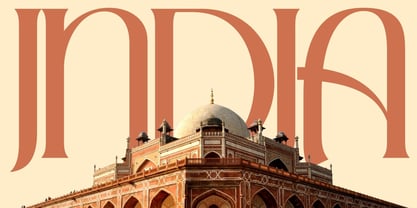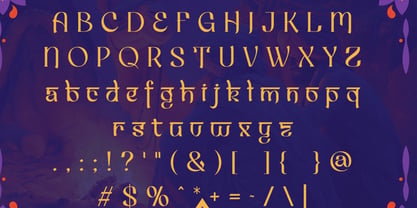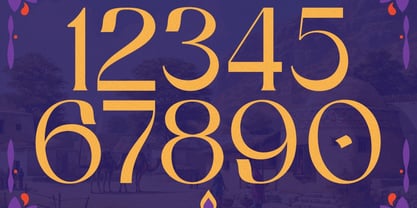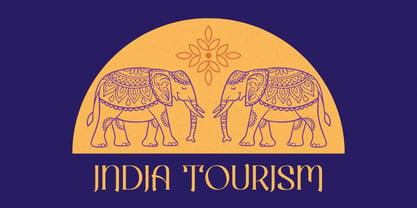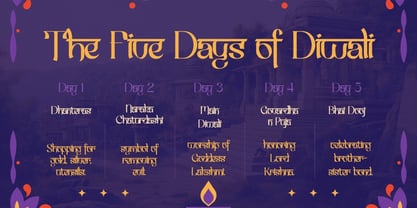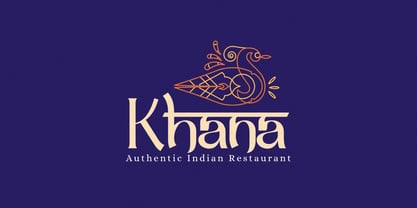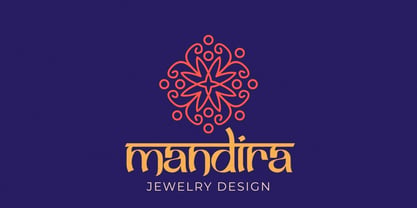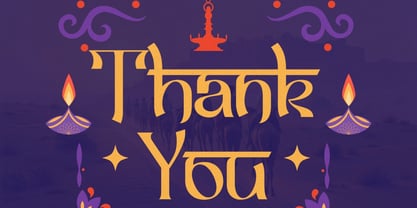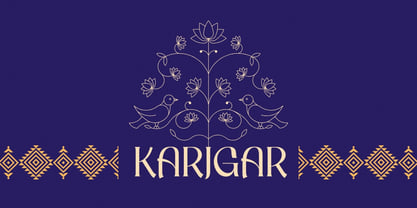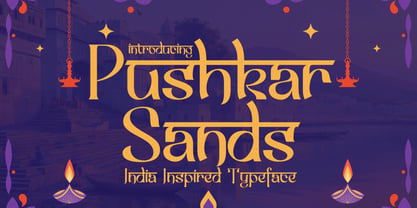
Pushkar Sands
by Hipfonts
The Pushkar Sands Font Family was designed by Igor Ovsyannykov and published by Hipfonts. Pushkar Sands contains 1 styles. More about this family
Pushkar Sands is an enchanting Indian-inspired display typeface that captures the soul of Rajasthan’s desert beauty and the festive warmth of India’s cultural heritage. With both uppercase and lowercase letters, this font blends traditional elegance with modern design sensibility. Inspired by the glowing charm of Diwali lanterns, the curves of ancient temple architecture, and the decorative motifs of Pushkar’s vibrant streets, Pushkar Sands radiates personality and authenticity. Its bold strokes, smooth flowing lines, and subtle handcrafted character make every word feel rich, celebratory, and full of life. Perfect for festival posters, wedding invitations, brand identities, packaging, spiritual projects, travel designs, YouTube thumbnails, and expressive headlines, Pushkar Sands adds a warm Indian spirit to any creative work.
Designers: Igor Ovsyannykov
Foundry: Hipfonts